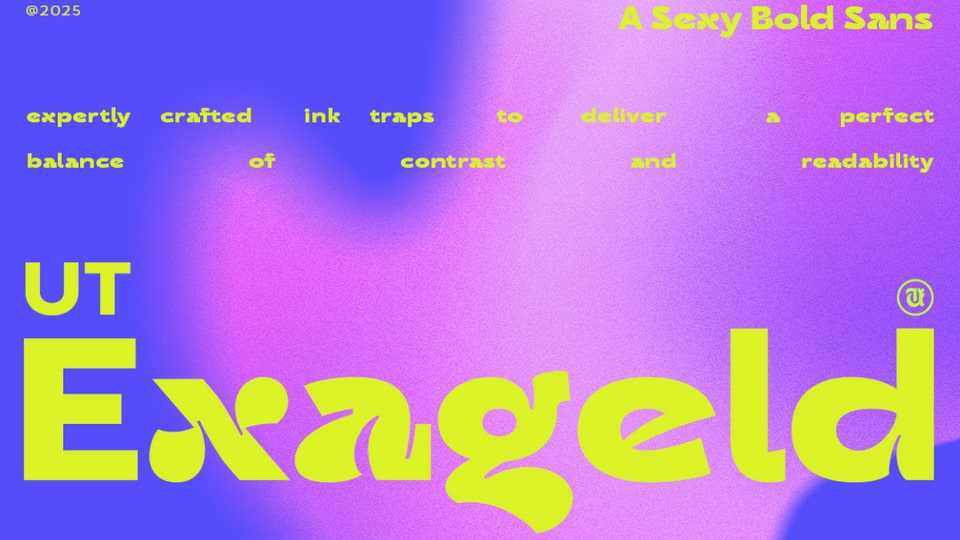
Download UT Exageld font, a bold, sexy, and versatile sans-serif typeface that is perfect for designers looking to make a strong visual impact with its expertly crafted ink traps.
Designer: Universitype Foundry